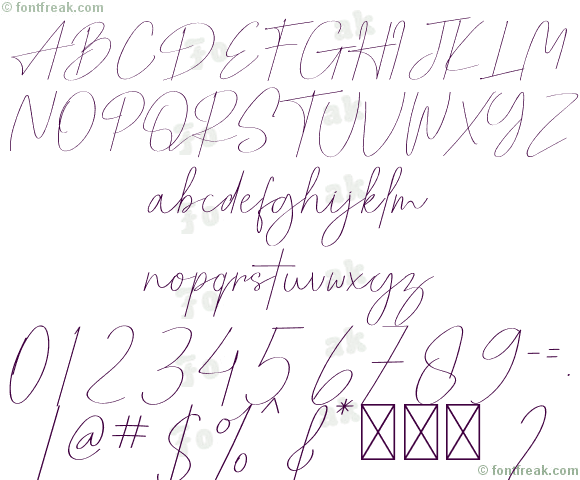
Pricillia
The Pricillia font by Rantau Type is a stunning script typeface that exudes elegance and charm. Released in 2019, this font showcases a fluid, handwritten style that mimics the graceful strokes of calligraphy. The stroke weight varies delicately, creating an appealing contrast that enhances its visual appeal. The letters are well-spaced, ensuring legibility while maintaining an artistic flair, which is perfect for various design applications. The decorative swashes and flourishes add a touch of sophistication, making Pricillia a standout choice for those seeking a refined type solution.
This versatile font is ideal for a range of creative projects. It shines in wedding invitations, where its romantic style can beautifully capture the essence of special occasions. Additionally, Pricillia makes an excellent choice for movie posters, where it can add a dramatic touch that draws the viewer's eye. Restaurant menus also benefit from the font's unique character, providing a stylish presentation that enhances the dining experience. Furthermore, content creators can use this font for branding purposes, as it adds a personal and inviting touch to social media graphics or promotional materials.
The target audience for the Pricillia font includes graphic designers, small business owners, and content creators who are looking to elevate their visual communications. This font is particularly appealing to those who appreciate the art of typography and seek to infuse their projects with personality and flair.
What sets Pricillia apart is its harmonious blend of elegance and readability, making it a perfect choice for any design project that requires an artistic touch. With the Pricillia font free download available, anyone can incorporate this beautiful typeface into their work, enhancing their creative endeavors with its distinctive charm.